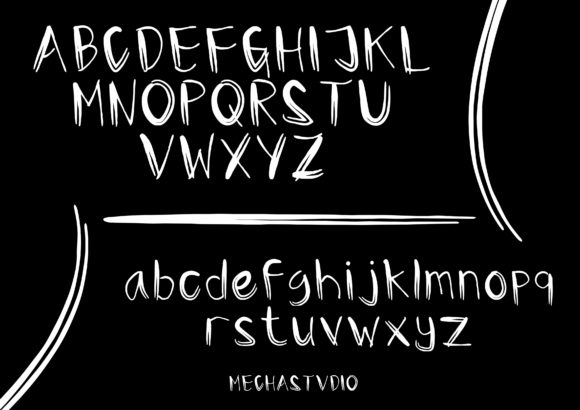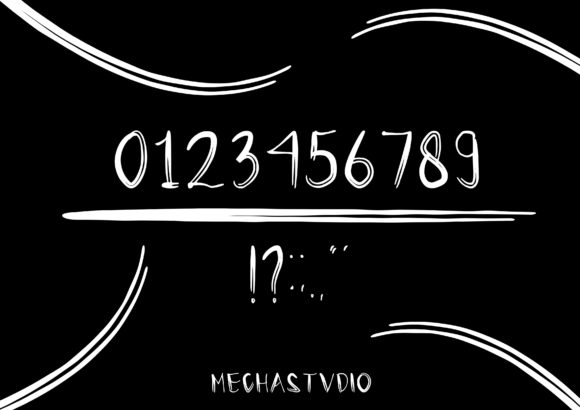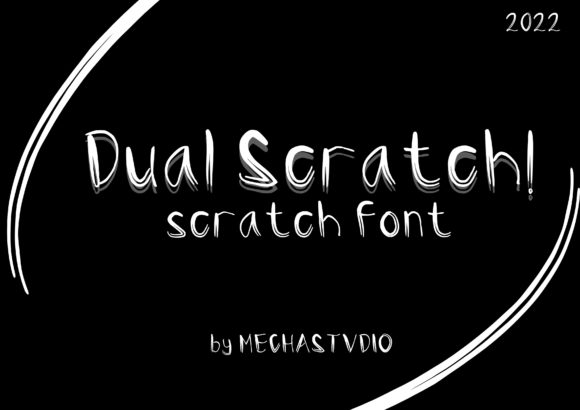
Dual Scratch Font
About Dual Scratch Font
Dual Scratch is a contemporary and condensed handwritten font that exudes a modern and natural charm. With its unique style and compact letterforms, this font is a versatile choice that can adapt to a wide range of design projects, limited only by your creativity.
The distinctiveness of Dual Scratch lies in its condensed form, which allows it to stand out and make a bold statement in various design contexts. Its handwritten appearance brings a touch of authenticity and personalization to your creations, while its modern twist adds a fresh and current vibe.
The font’s versatility knows no bounds, making it suitable for a plethora of design ideas. Its compact nature makes it an ideal candidate for headlines, banners, and titles, where it can effectively capture attention and communicate a clear message. Additionally, Dual Scratch’s natural and approachable style makes it a great choice for branding and logo design, giving your business or product a distinctive and memorable visual identity.
When applied to digital and print materials, Dual Scratch adds a touch of uniqueness and personality. Whether it’s used for social media graphics, posters, flyers, or packaging, the font’s modern handwritten aesthetic brings an element of individuality that sets your designs apart.
Ultimately, Dual Scratch condensed font style opens up a world of creative possibilities. Its contemporary yet natural design makes it suitable for a variety of projects, from trendy and edgy to elegant and refined. With this font, your imagination is the only limit, and you have the power to create stunning and impactful designs that resonate with your audience.